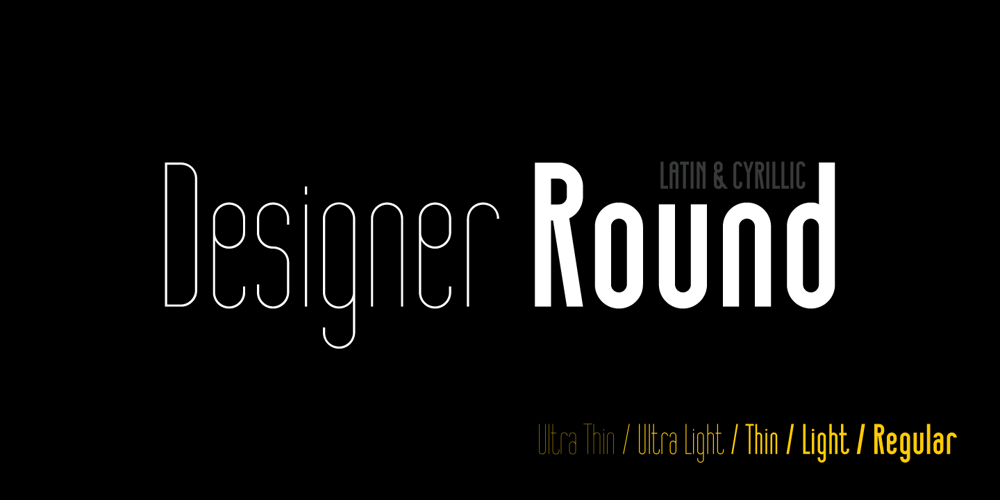
Designer RD Font Family was designed by published by Kostic. Designer RD contains 5 styles and family package options. Designer RD was created in 1999, at the same time as Just Square and Why Square typefaces, and envisioned to be their rounded alternative. Zoran based the font on the logotype his son Nikola made and its primary purpose is to be used in logotypes, headlines, fliers, websites, etc. that are going for a hard geometric look. Designer RD’s character set supports Western European languages, as well as the Cyrillic script.